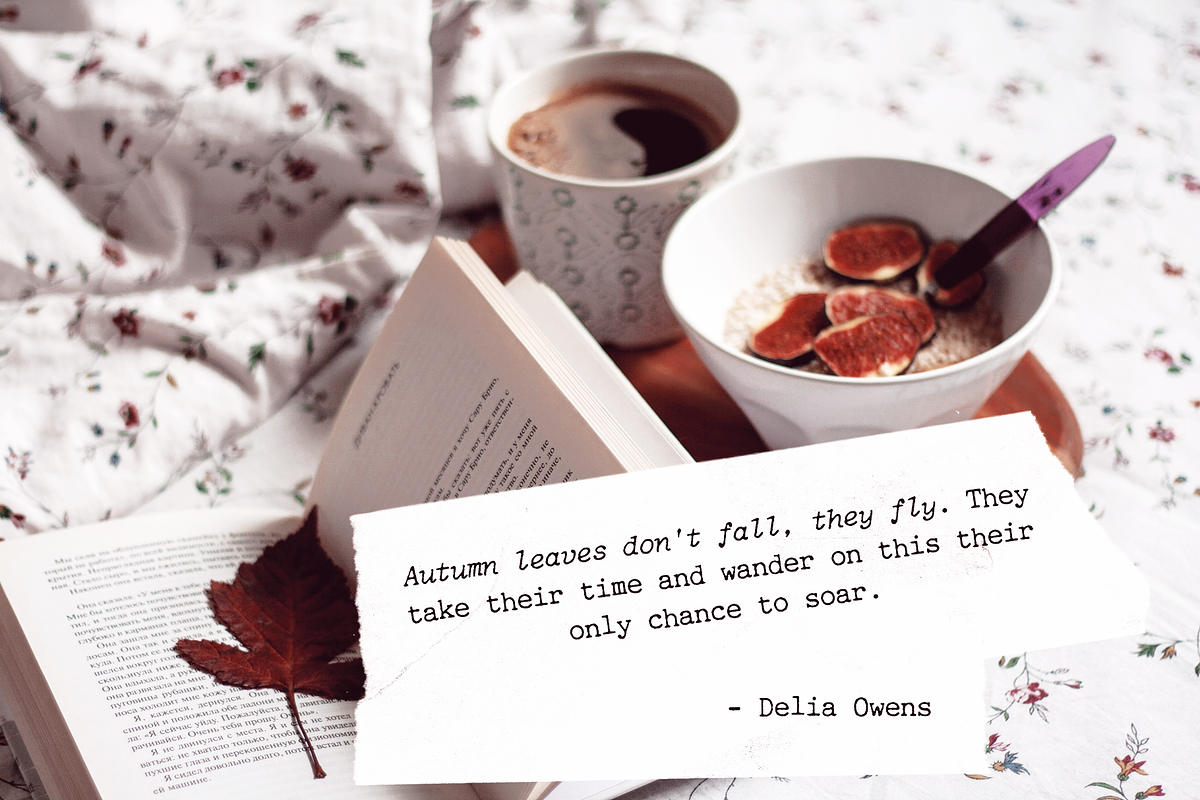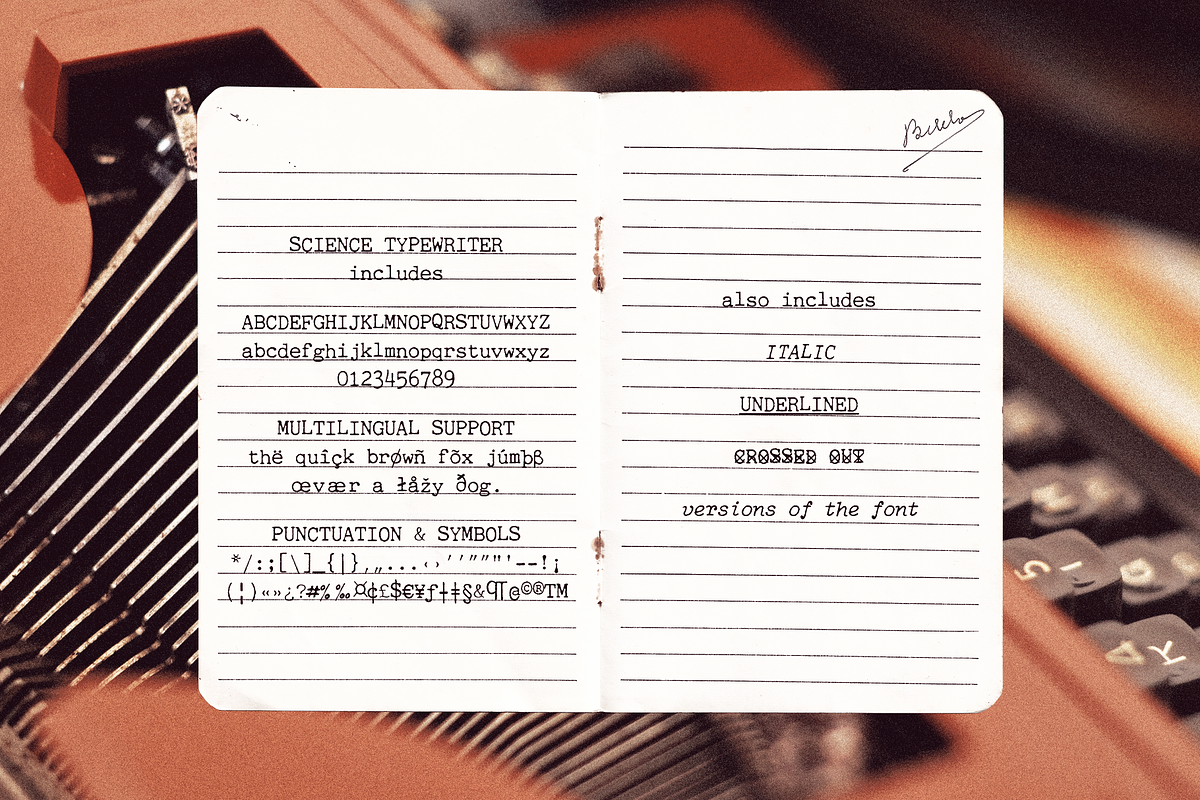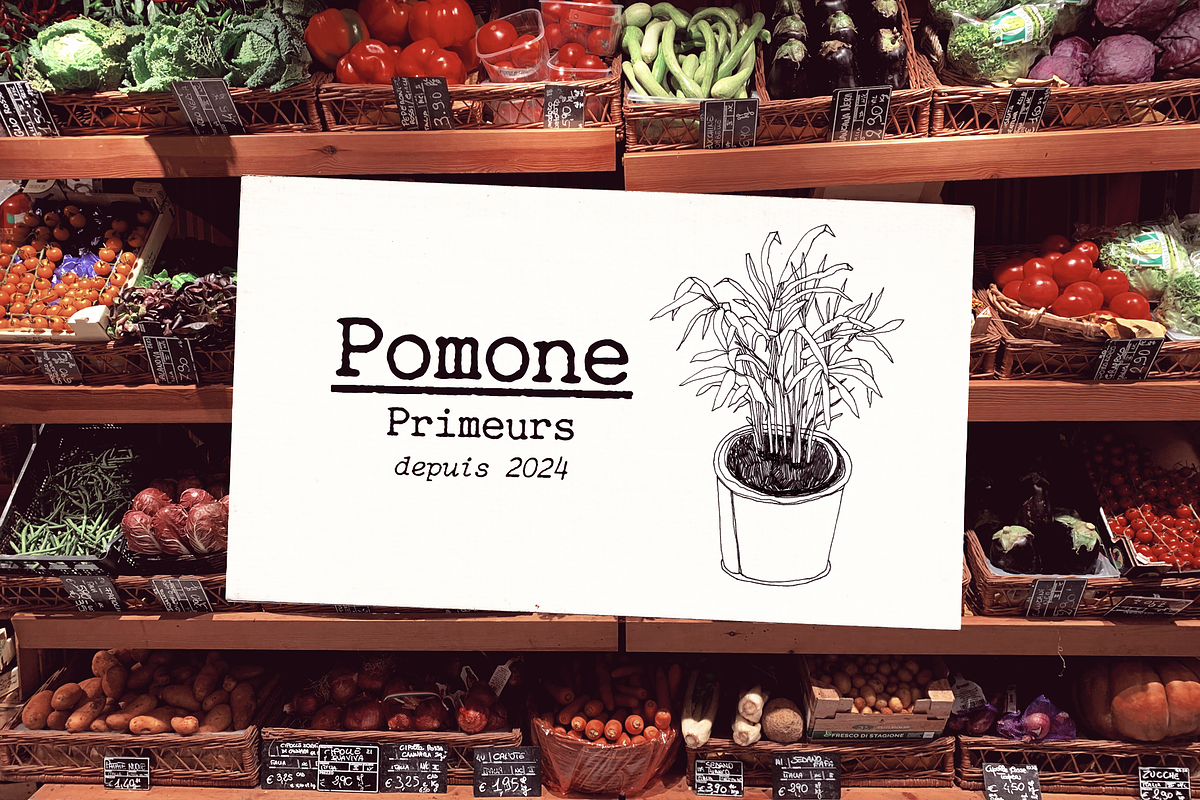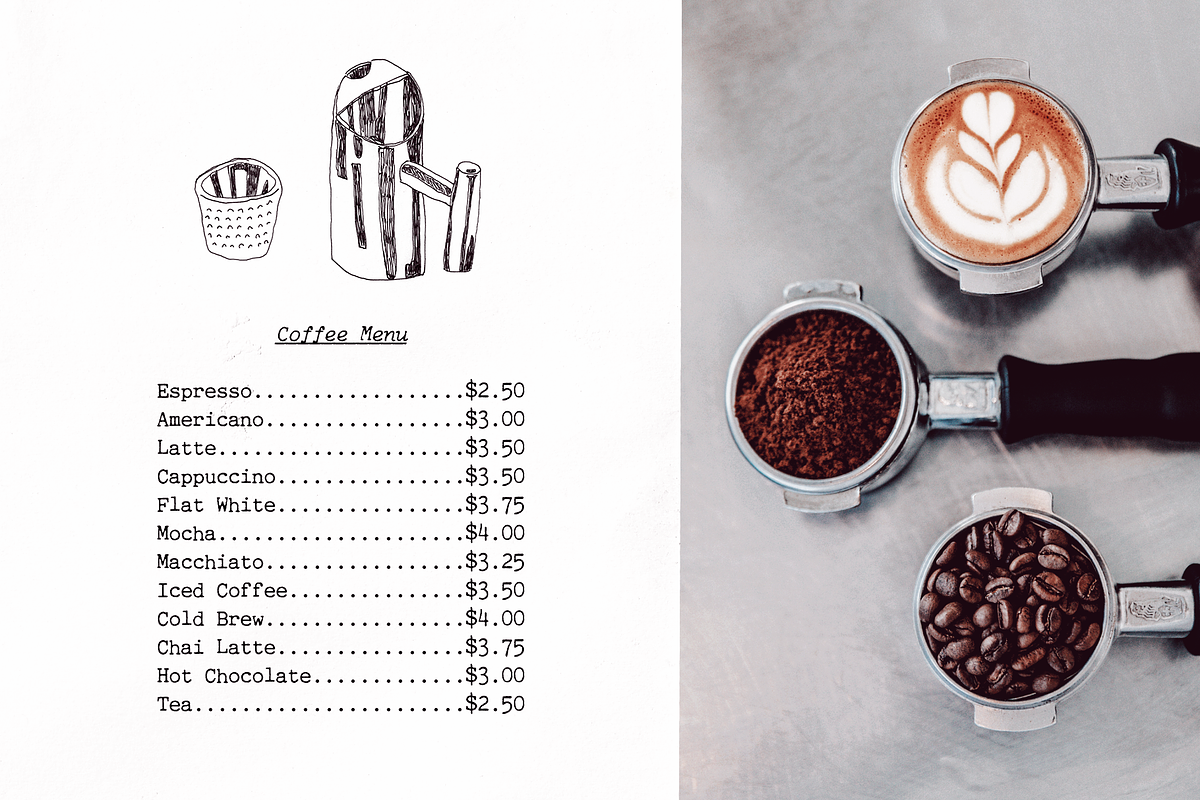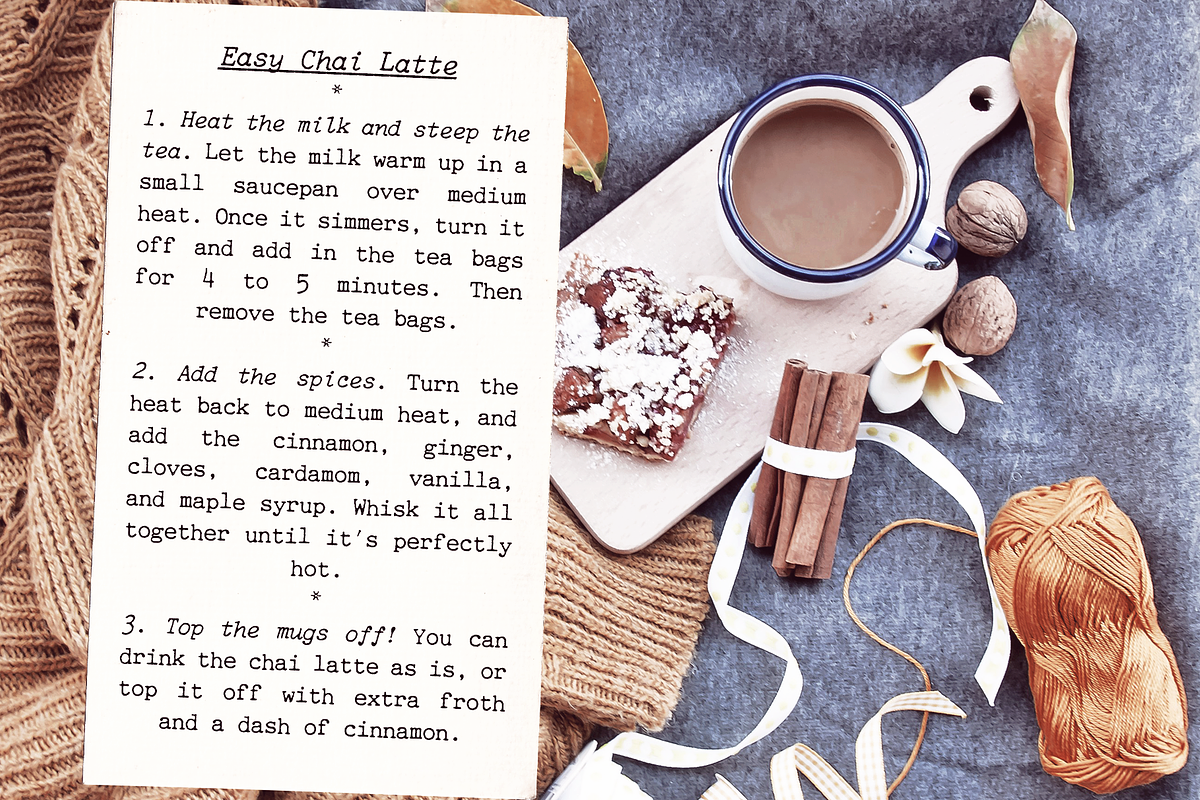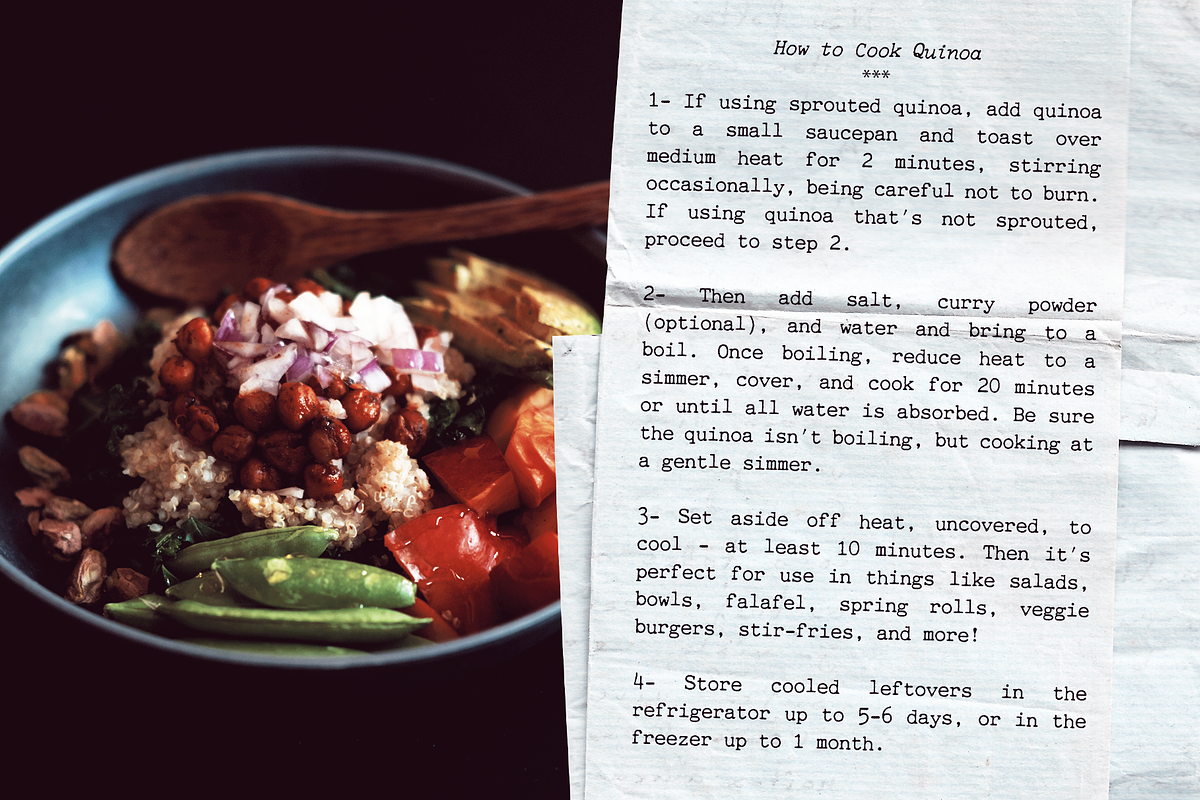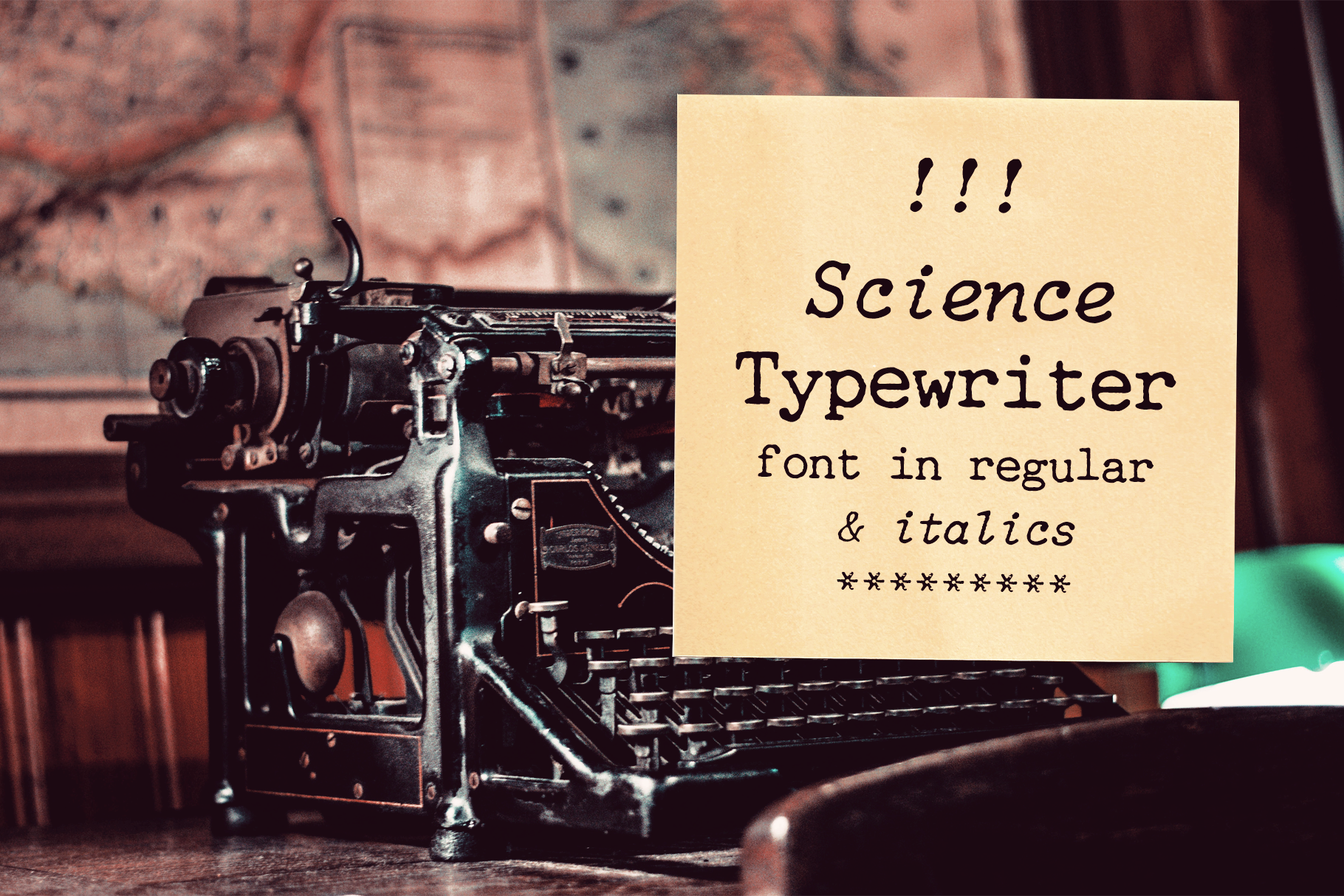
Science Typewriter Font
Introducing Scientific Typewriter, a quirky, textured typewriter font that brings the charm of retro office machines with a twist of playful imperfection. This unique font captures the authentic, slightly worn look of vintage typewriters, adding a bit of texture that feels like it’s been typed directly onto paper. With both Regular and Italic styles, it’s versatile for everything from science-inspired designs to personal projects that need a little retro edge.
As a bonus, Scientific Typewriter also includes special underlined and crossed-out versions—perfect for creating an editorial look or adding a quirky touch.
Scientific Typewriter offers endless possibilities to make your work stand out! This font’s textured, uneven keystrokes will give your project character and personality, ideal for designers, writers, and anyone seeking that perfect balance between vintage and fun.